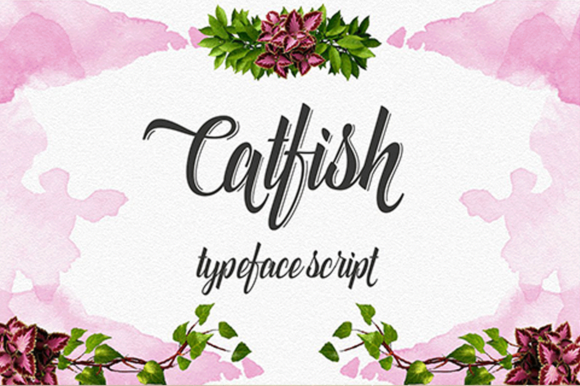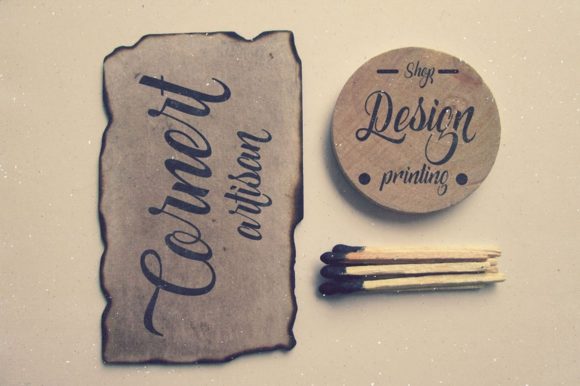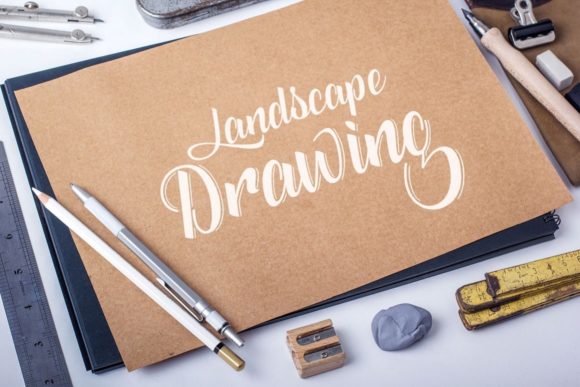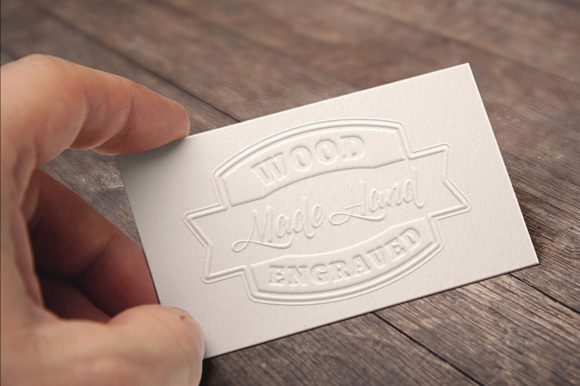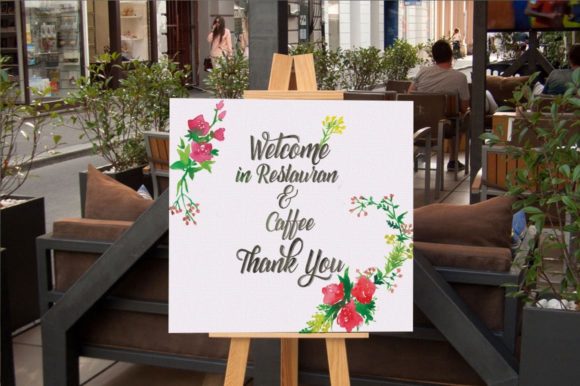
Catfish Font
About Catfish Font
Catfish is a stylish and incredibly elegant script font. It looks stunning on wedding invitations, thank you cards, quotes, greeting cards, logos, business cards and every other design which needs a handwritten touch.